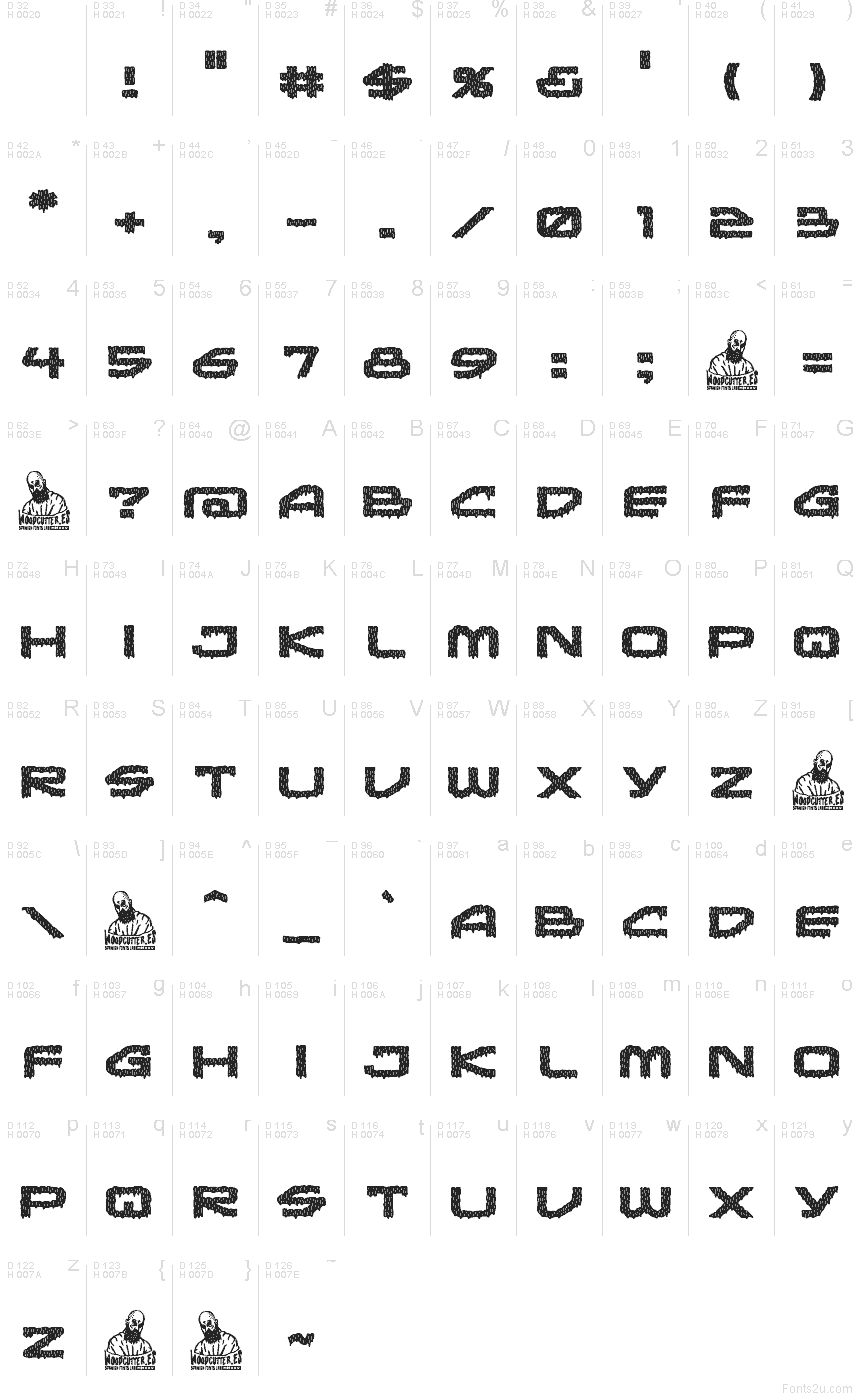
Wine Robot
Wine Robot font by Woodcutter is a free scary display typeface that looks like it crawled out of a haunted factory. Each letter is built from stacked, pill-shaped loops that feel part wiring, part teeth, giving words a jittery, mechanical shiver. The texture is dense and almost insect-like, so headlines look as if they’re writhing on the page, equal parts sci-fi and splatter-flick.
Using Wine Robot, your titles instantly signal techno-horror: it shines on horror movie posters, creepy sci-fi game logos, Halloween flyers, thriller book covers, escape room branding, and eerie YouTube thumbnails. This free font works best blown up big so the repeating loops become a pattern you can almost feel. Pair it with a plain geometric sans serif for body text to let Wine Robot handle the scares while the copy stays clean and readable.